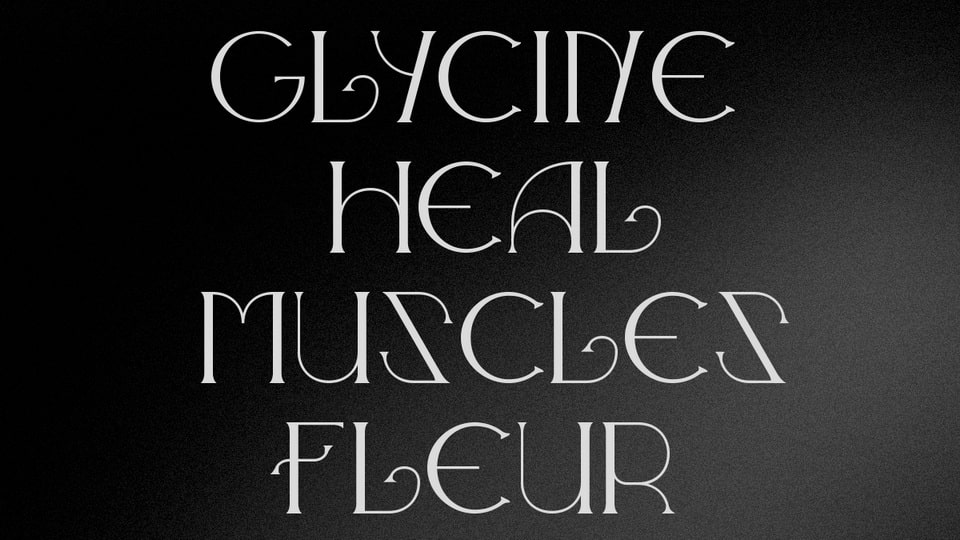
Download Plantasia Glycine font, an elegant and modern serif typeface inspired by the Wisteria. Plantasia is a typeface family created by the students of the G5 Communication 360 class.
Designer: Hector Travaillé